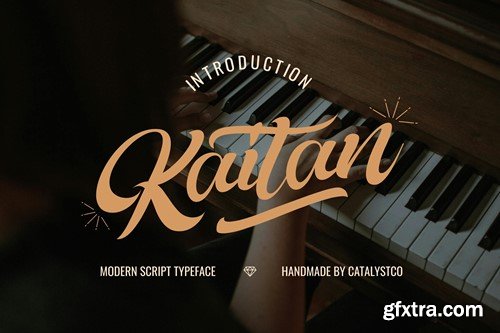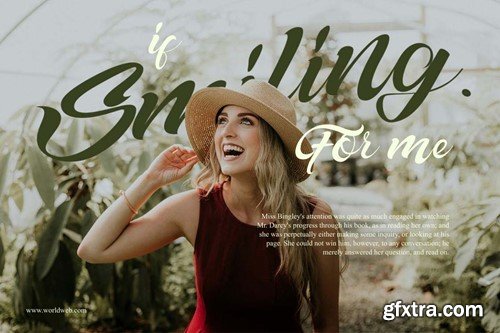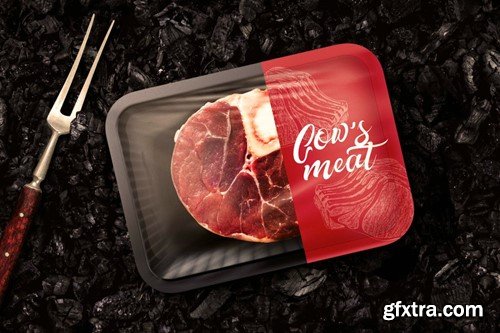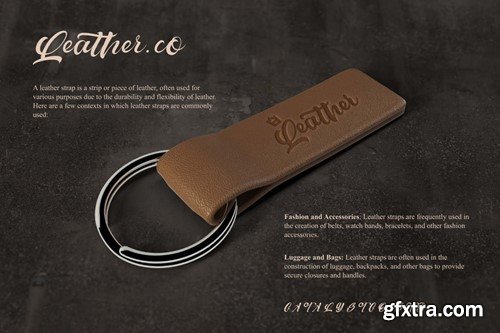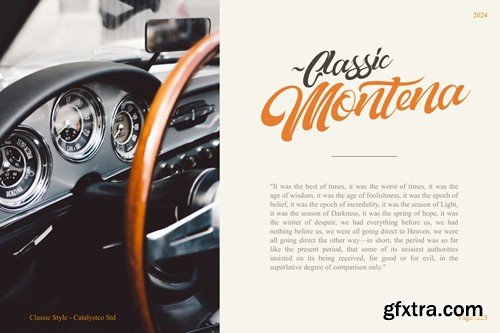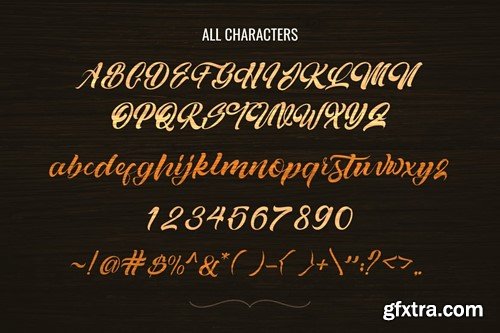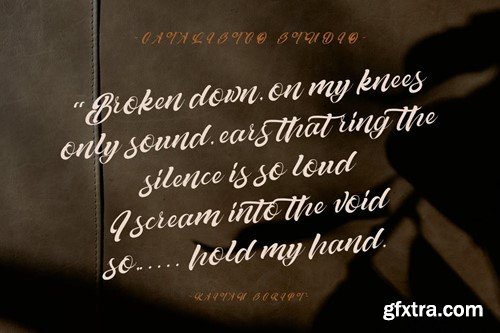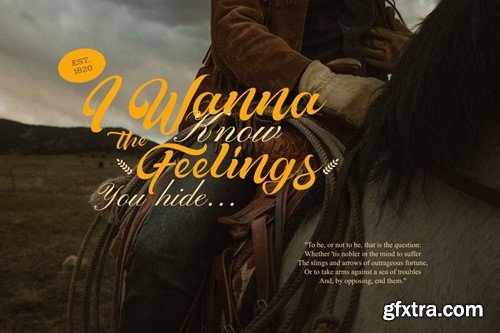
现代 serif 字型字体 7CTN7KV
Kaitan Modern Serif Typeface Font 7CTN7KV
Kaitan Modern Serif Typeface Font
Kaitan Modern Serif Typeface Font typeface excellent used for the manufacture quote text, logotype, header magazine, and many more.
Main Features
• Uppercase & Lowercase
• Ligatures & Alternate
• Numeral & Punctuations